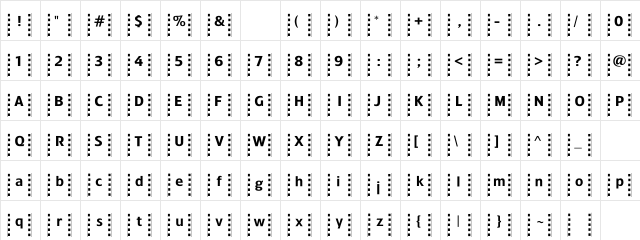
FilmStripTwo Regular Font Preview
FilmStripTwo Regular
Design Context for FilmStripTwo Typeface
FilmStripTwo takes a measured approach to typography — its balanced proportions and neutral character make it a reliable workhorse for both digital and print work.
Pro Tip: Use FilmStripTwo in both headline and body roles to test its range before committing to a single application.